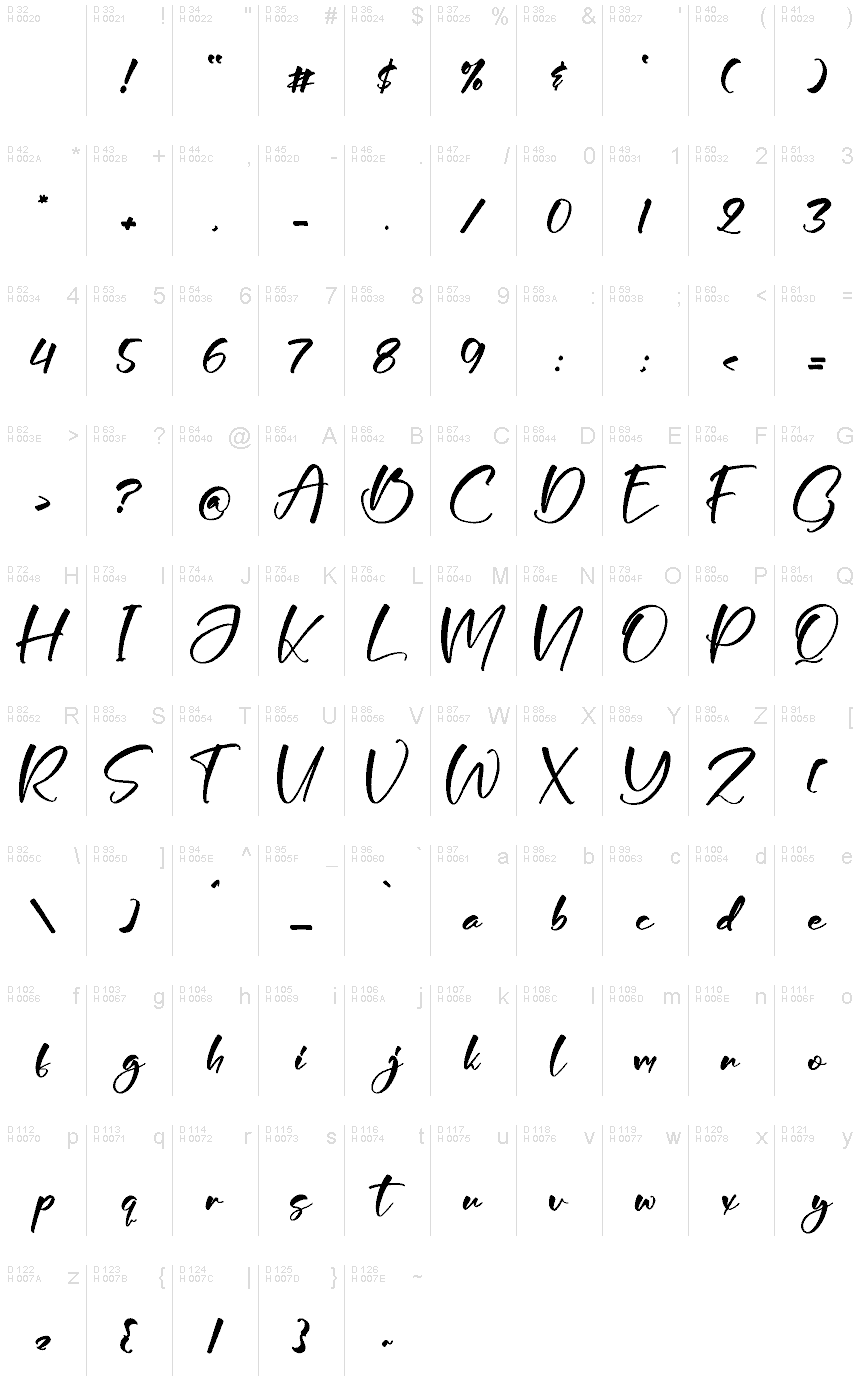
Aloivytta font by Letterena Studios is a free handwritten font that embodies casual elegance with a modern appeal. It draws inspiration from traditional cursive script, updated with contemporary touches leading to its stylish vibe. A fluid movement flows throughout each of the letters which elevates all your designs. Regardless of any artwork’s context, this flowing appearance injects sophistication and class into it.
Create entirely genuine content with Aloivytta including handwritten signatures and wedding invitations; it is the ultimate combination for feminine designs. Use the letters online in both ads and social media posts or print them on magazines and posters infinity free!